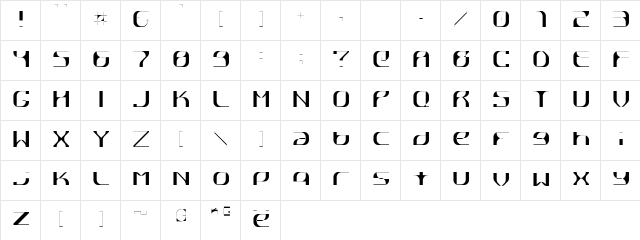
R崴pick Regular
Design Context for R崴pick Typeface
R崴pick is a composed and adaptable typeface that performs quietly and consistently across a wide range of design contexts.